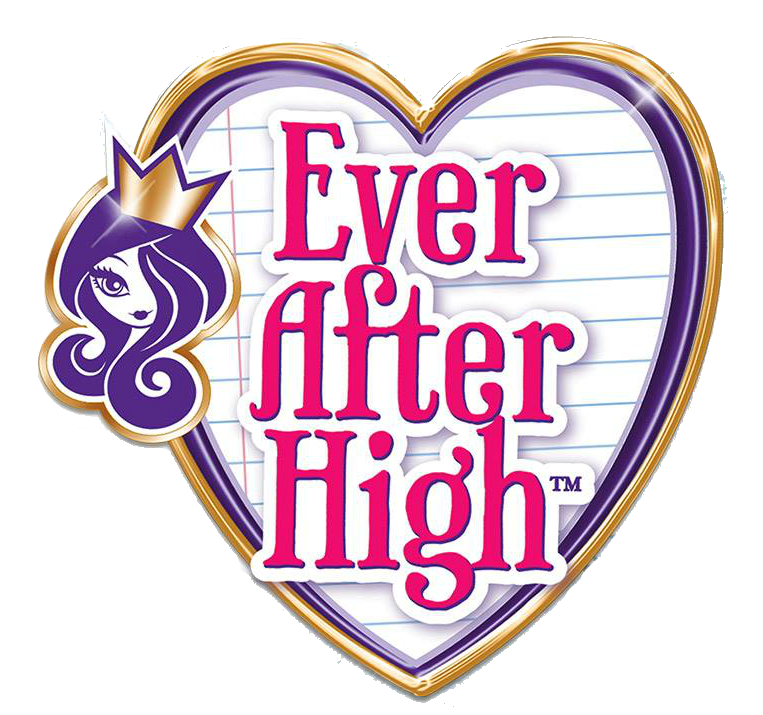
Ever After High Logo Font
EntertainmentEver After High is a popular doll franchise that features the teenage descendants of famous fairy tale characters, who attend a magical high school where they learn to embrace their destinies and become legends. The franchise includes dolls, books, webisodes, and various other merchandise.
The logo for the Ever After High fashion dolls features the Phaeton font. Designed through a collaboration between Randy Jones and illustrator Kevin Cornell, this font is a standout with its Victorian vintage feel and condensed serif style.